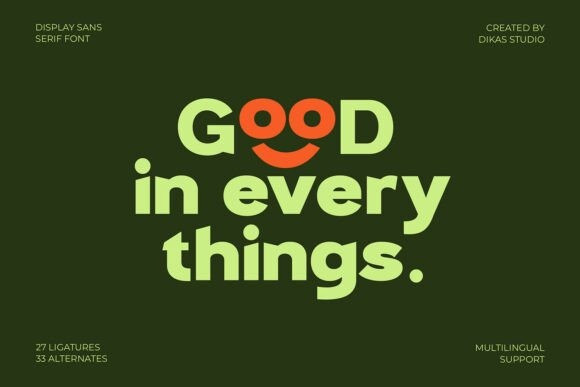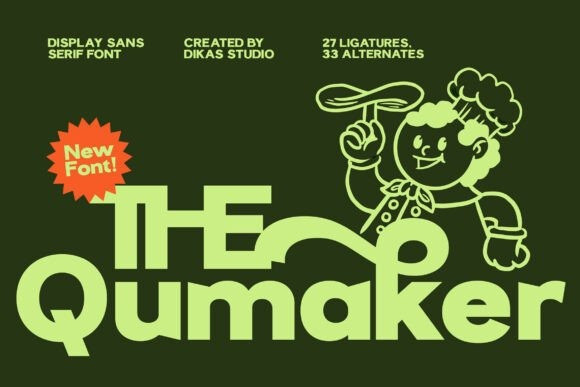
The Qumaker Font
The Qumaker Font is a bold and modern sans serif font with strong, straight shapes that command attention. Its confident character makes it perfect for designs that need a clear and powerful typographic presence. Equipped with stylish alternate characters and smooth ligatures, The Qumaker gives you extra flexibility to create standout titles, logos, branding, and posters.